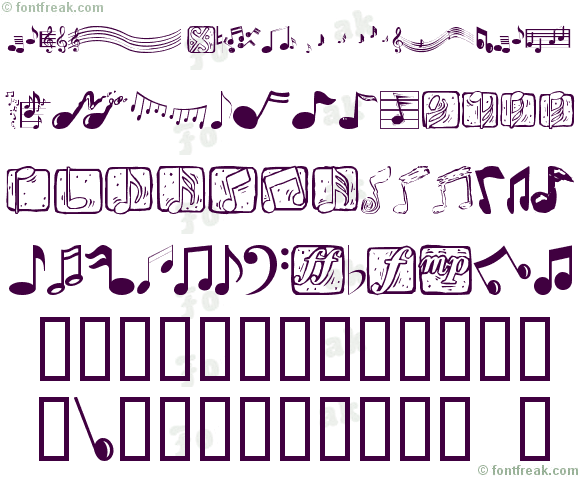
Musicelements
Musicelements, created by Manfred Klein, is a unique decorative dingbat font that effortlessly combines musical symbols with a playful design. This font features a whimsical style characterized by its bold, hand-drawn appearance, making it perfect for adding a creative touch to various projects. The strokes are moderately thick with a slightly irregular line quality, contributing to its artistic flair. The spacing between the characters is generous, allowing for clear visibility while maintaining an engaging aesthetic. Decorative elements like musical notes and symbols are incorporated throughout the typeface, making it a delightful choice for music-themed designs.
Ideal use cases for Musicelements include wedding invitations that celebrate couples' shared love for music, album artwork for indie artists looking to stand out, educational materials about music theory, and promotional materials for concerts or music festivals. Additionally, this font can be utilized in restaurant menus that feature live music events, giving patrons a sense of the lively atmosphere.
The target audience for Musicelements includes graphic designers seeking distinctive typefaces to enhance their projects, small business owners in the music industry, and content creators looking to inject creativity into their visuals. Musicians and educators will also find this font particularly appealing as it aligns perfectly with their themes.
What truly sets Musicelements apart is its ability to convey joy and creativity through its playful design. By incorporating musical elements into a font format, it offers a fresh perspective on typographic choices for anyone involved in the arts. For those looking to elevate their designs, the Musicelements font free download provides an exciting opportunity to explore new creative avenues.